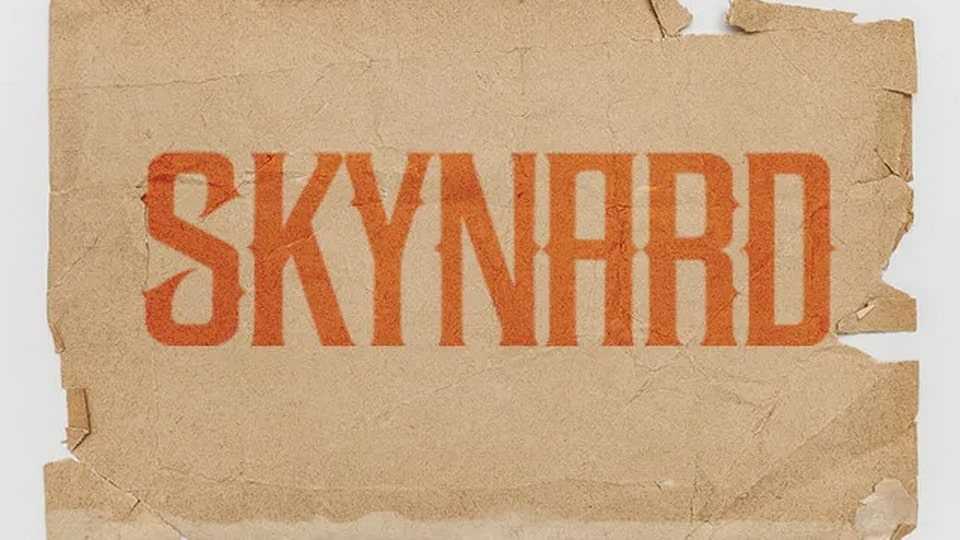
Download Skynard font, a decorative Victorian-inspired typeface that channels the bold, rebellious spirit of classic rock. The font is inspired by the iconic Lynrd Skynrd album cover “God + Guns”.